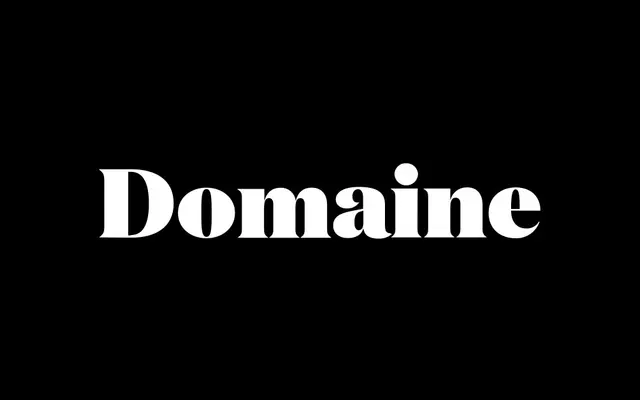
Domaine Display
Klim Type Foundry · Kris Sowersby · 2013
Domaine Display specimen from Klim Type Foundry
A sharp display serif with triangular serifs and hooked terminals, fit for fashion, luxury and editorial mastheads at large sizes.
A sharp display serif by Kris Sowersby that blends French and British genres, with bracketed triangular serifs, distinctive hooked terminals and italics inspired by Deberny & Peignot's Labeurs Ordinaires Série. Six weights run from Regular to Black, and the family extends into Domaine Display Narrow and Domaine Display Condensed, which hold their elegance at tight measures. The contemporary alternative to HTF Didot or Bodoni when a luxury, fashion or editorial brand wants the sharpness without the chill.
Klim classifies it as Modern: Transitional/Latin; a sharp, elegant serif blending French and British genres, with bracketed triangular serifs and hooked terminals; italics inspired by Deberny & Peignot's Labeurs Ordinaires Série.